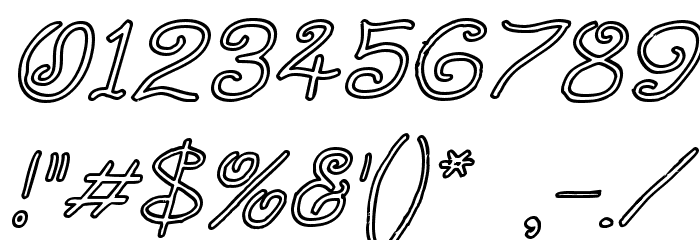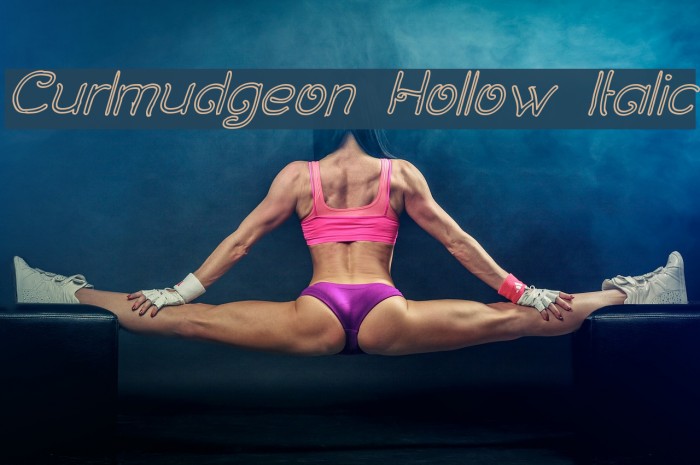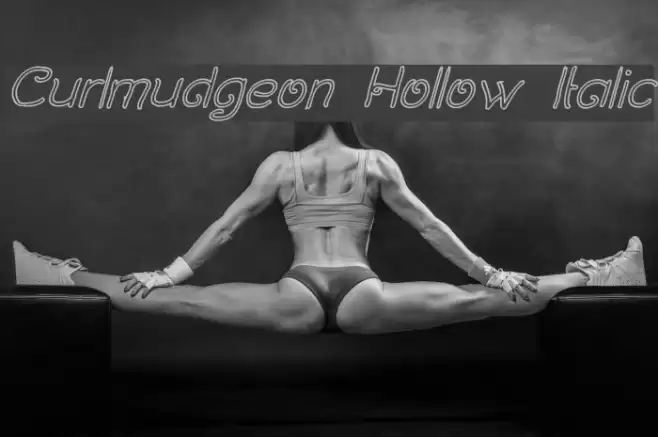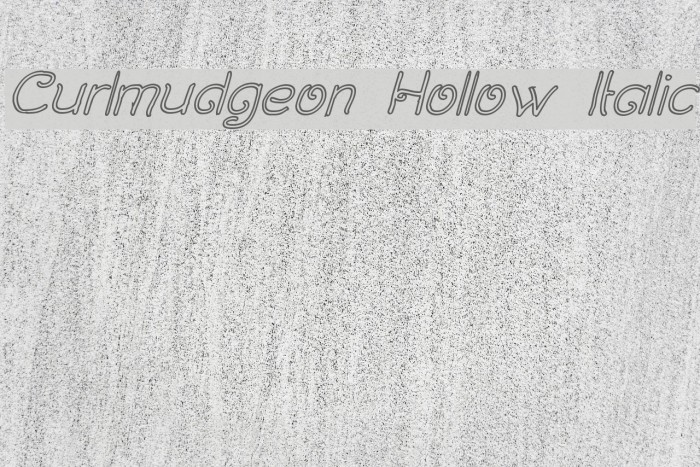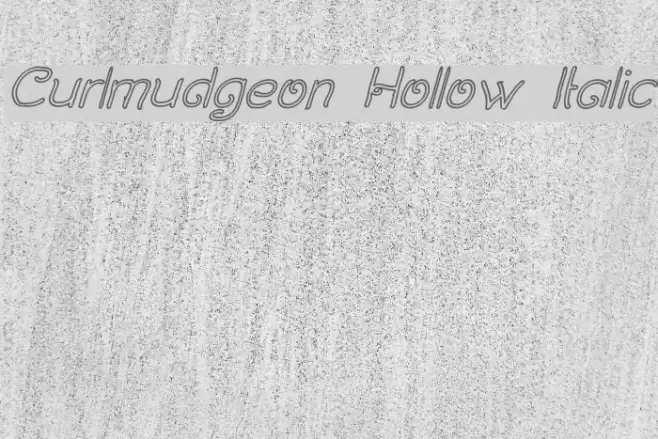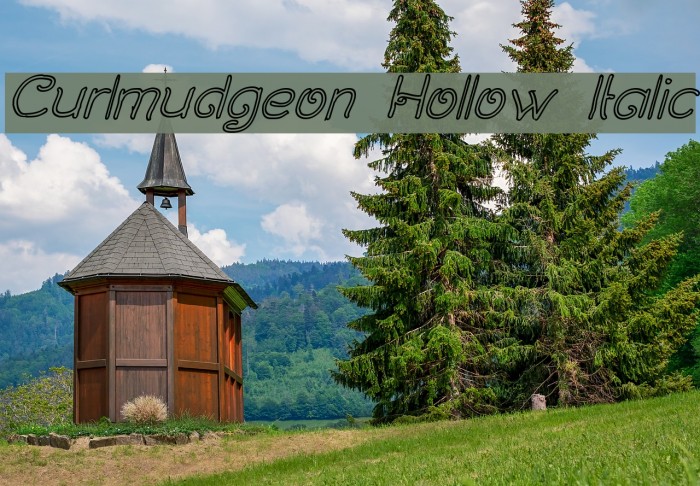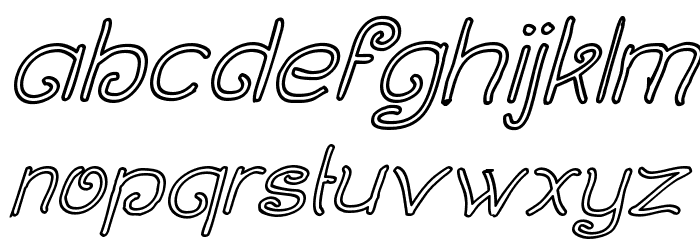
Curlmudgeon Hollow Italic Font
Curlmudgeon Hollow Italic Description
This font features a playful and whimsical design with a hollow, outlined style. Each character is crafted with a smooth, flowing script that gives it a dynamic and lively appearance. The italic slant adds a sense of motion and elegance, making it ideal for creative and informal projects. The uppercase and lowercase letters maintain a consistent style, with rounded edges and a slightly condensed form. Numbers and special characters are equally expressive, ensuring a cohesive look across all text elements. The hollow aspect of the font allows for creative color fills or background integration, enhancing its versatility.
| Categories | Outline |
| Width | Condensed |
| Overall Style | Playful and Whimsical |
| Use Case | Headlines, Logos, Creative Text |
| Proposed Projects | Ideal for greeting cards, playful branding, children's books, and creative posters. |